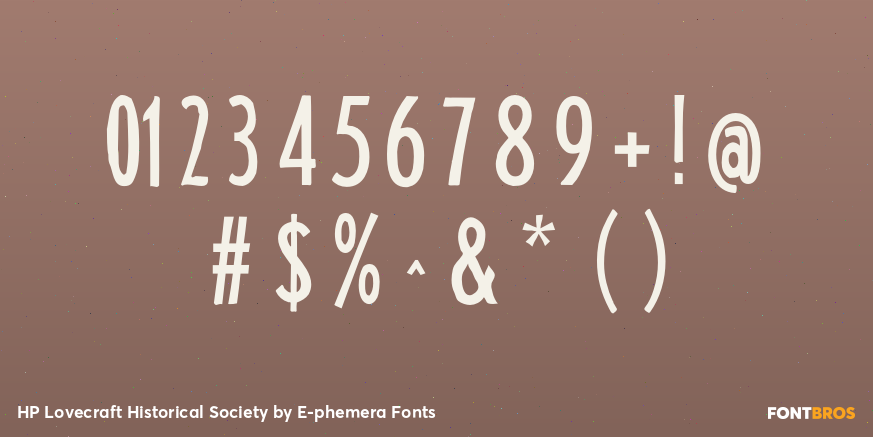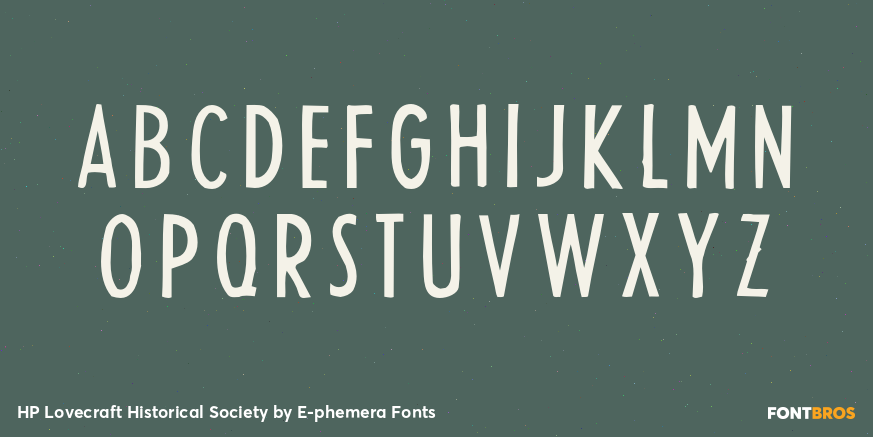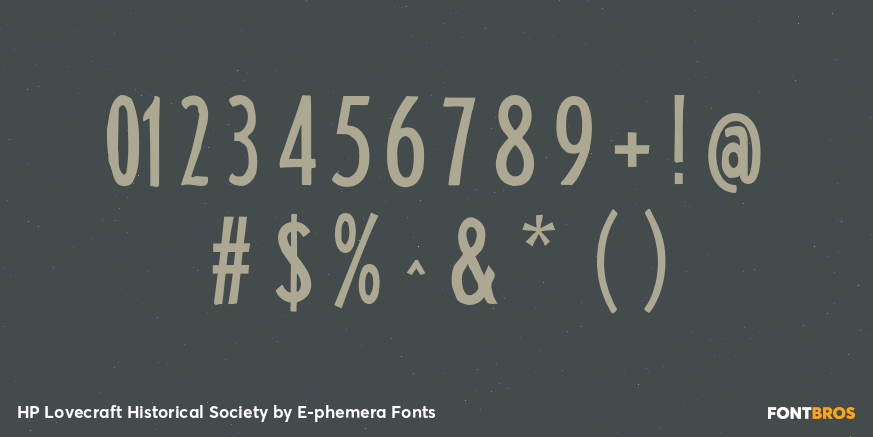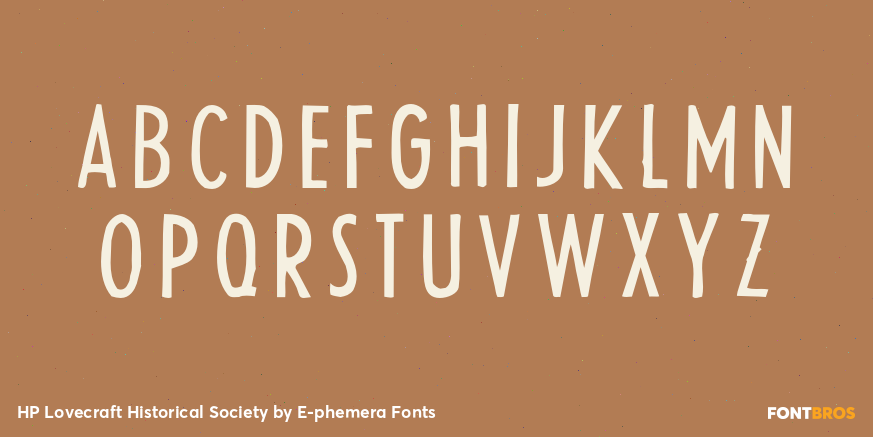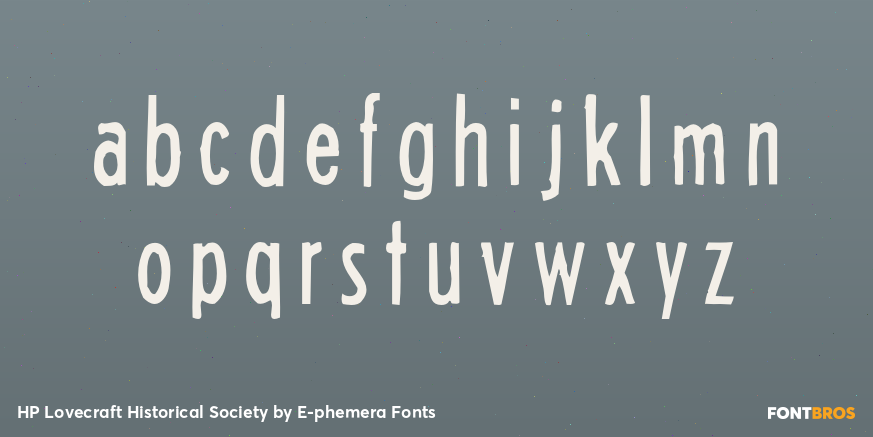
HP Lovecraft Historical Society
Font Family by E-phemera Fonts
On the endless and insane quest for authenticity, we have created more than 50 custom fonts to use in props. Typographical fashions change, and since the digital age overtook typesetting and graphic design, many of the fonts common in the time of Lovecraft have fallen into disuse. We've revived many of them from vintage sources, including the 1923 American Type Founder's specimen book and the Mergenthaler Linotype catalog from the mid-1930s. Many of these fonts have slightly rough edges or irregular shapes, to capture the feel of old lead type and bygone printing technologies. One pair of fonts replicates H. P. Lovecraft's own handwriting, as seen in his correspondence.